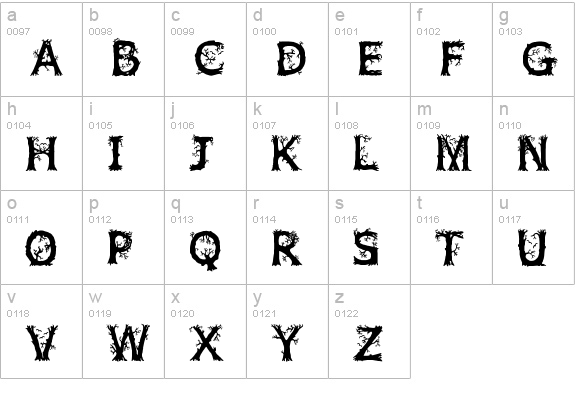
JFWildWood Font Details
JFWildWood is a captivating and whimsical font that brings a touch of nature to your designs. This unique typeface is inspired by the enchanting beauty of the wild woods, with its intricate branches and leaves forming each letter. With its organic, hand-drawn feel, JFWildWood adds a sense of magic and wonder to any project. Its versatility makes it the perfect choice for a wide range of design purposes, from logos and branding to invitations and posters. Whether you're working on a project that requires a rustic and earthy aesthetic or one that needs a dash of wildness and adventure, JFWildWood is the font that will take your design to the next level. What makes JFWildWood even more amazing is that it is available for free. Yes, you heard that right! This incredible font can be freely downloaded from FontsMarket.com, a reputable source for high-quality fonts. So, not only do you get a visually stunning typeface that adds a unique touch to your designs, but you also get it without spending a dime. With JFWildWood, you have the freedom to create captivating designs that capture the essence of nature and bring a sense of wonder to your audience. So, why wait? Head over to FontsMarket.com now and download JFWildWood for free to unlock a world of creative possibilities.